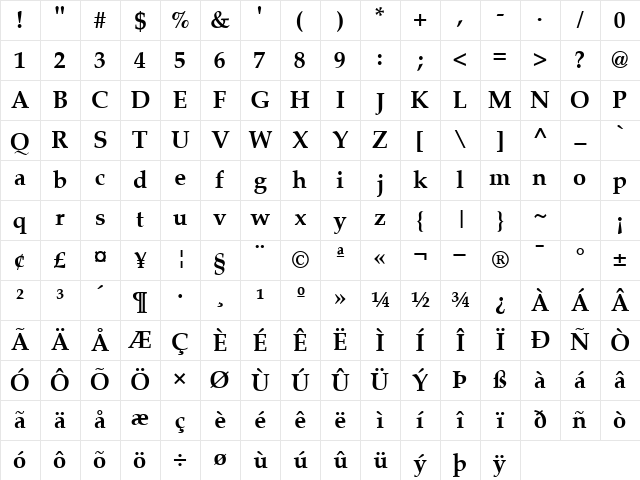
CriteriaSSK Bold
Design Context for CriteriaSSK
CriteriaSSK is a composed and adaptable typeface that performs quietly and consistently across a wide range of design contexts. Its bold stroke weight gives it real presence on the page.
Pro Tip: Use CriteriaSSK in both headline and body roles to test its range before committing to a single application.